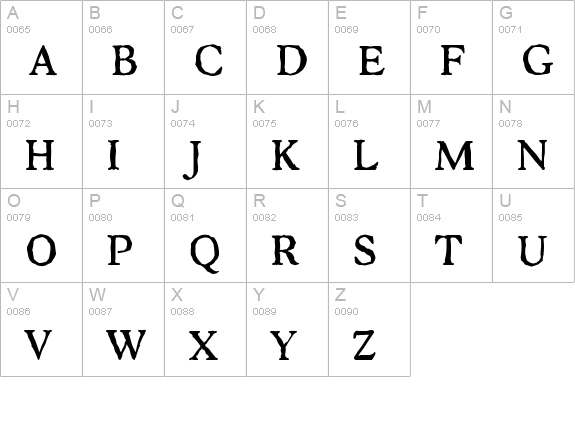
StratfordAntique-Regular Font Details
StratfordAntique-Regular is the standard, neutral variant in the StratfordAntique typeface family \xE2\x80\x94 well suited to general body text, paragraphs, and standard typographic work.
StratfordAntique-Regular font is a timeless and elegant typeface that exudes a sense of sophistication and vintage charm. With its ornate serifs and graceful letterforms, this font captures the essence of classic design with a modern twist. Perfect for adding a touch of class to any project, from invitations to branding materials, StratfordAntique-Regular font is versatile and eye-catching. And the best part? It's completely free to download at FontsMarket.com. So whether you're a designer looking to elevate your creations or just someone who appreciates beautiful typography, don't miss out on this stunning font. Download StratfordAntique-Regular today and add a touch of timeless elegance to your next project.